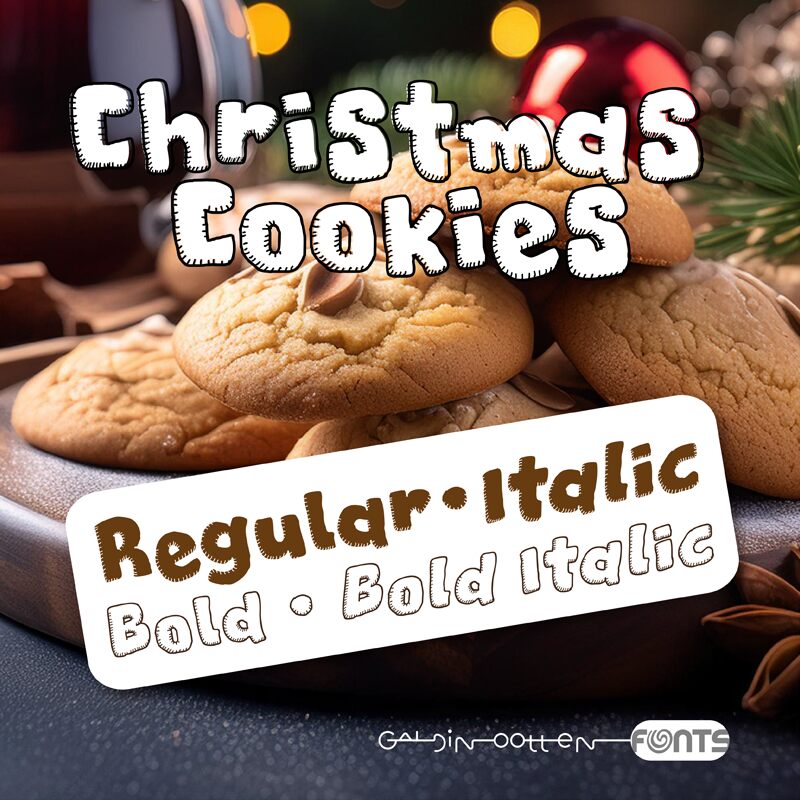
Christmas Cookies Italic
Christmas Cookies Italic font is a free cartoon display typeface from Galdino Otten Fonts. Its smooth textured style resembles that of frosting on a Christmas cookie as letters appear whimsically carved. It further has a bold weight that makes for attention-grabbing typography.
Use this font to create kids’ product packaging, game interfaces, titles, cards, posters, and apparel designs. It is suitable for use on websites and apps with a non-serious or tourism subject matter. Other ideas include using it for birthday party invitations, cups and plates manufacturing companies branding as well as toy branding.